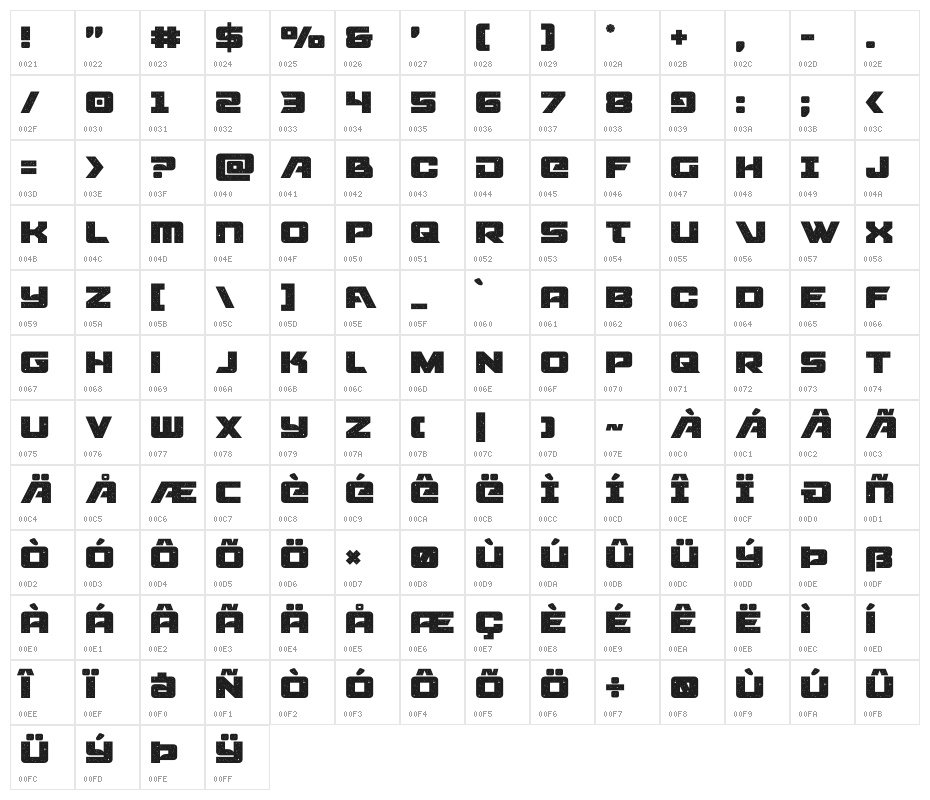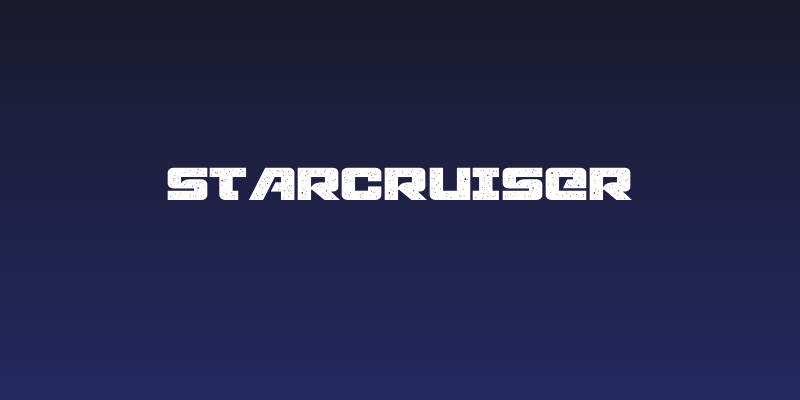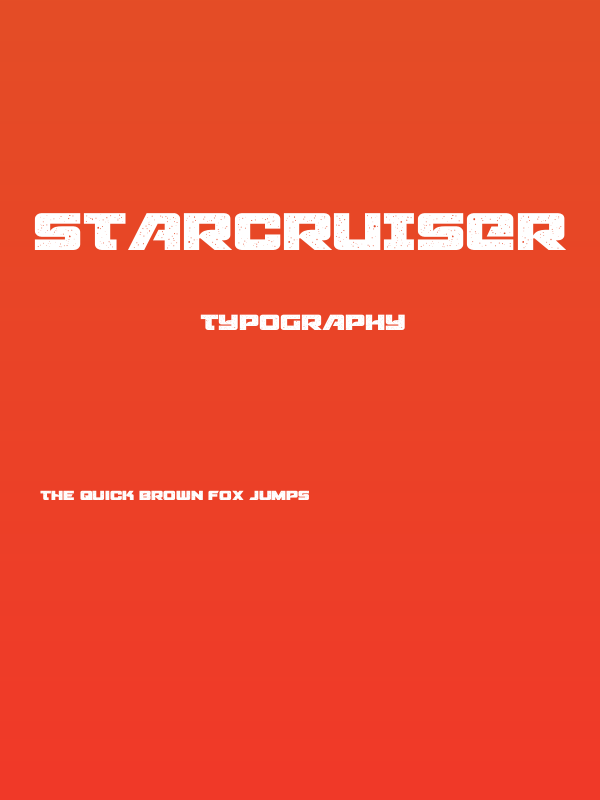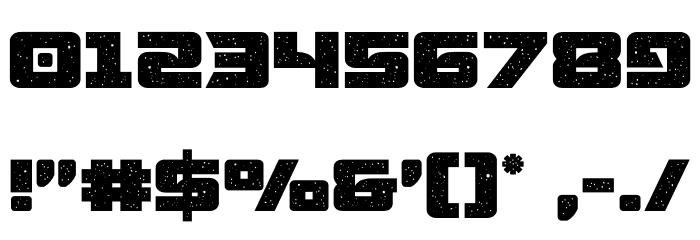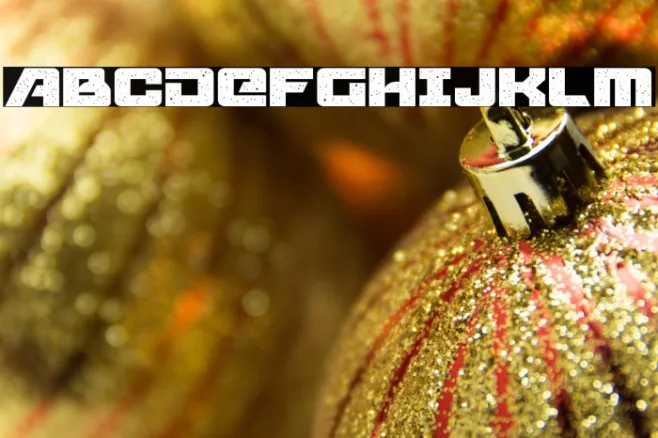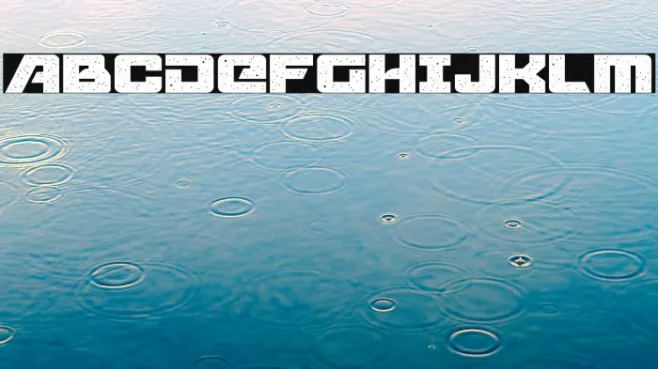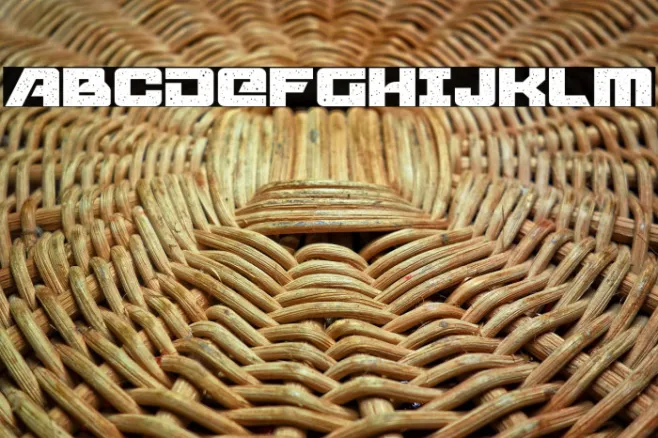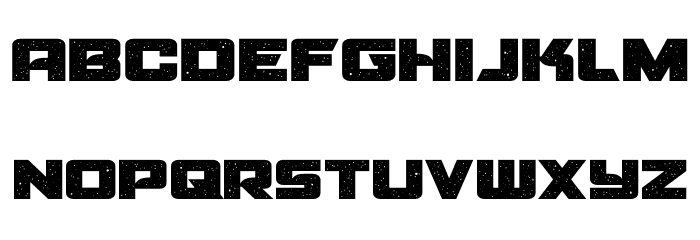
Starcruiser Font
Starcruiser Description
This font features a bold, futuristic design with a distinct space-themed aesthetic. The characters are blocky and geometric, with a unique speckled pattern that resembles stars scattered across the letters. This pattern adds a dynamic texture, making the font stand out for creative projects. The uppercase letters are uniform in height, and the numbers follow the same stylistic approach, ensuring consistency across all characters. The special characters maintain the same cosmic theme, integrating seamlessly with the rest of the set. This font is perfect for projects that require a modern and adventurous look.
| Proposed Projects | Ideal for sci-fi book covers, movie posters, video game titles, and themed event invitations. |